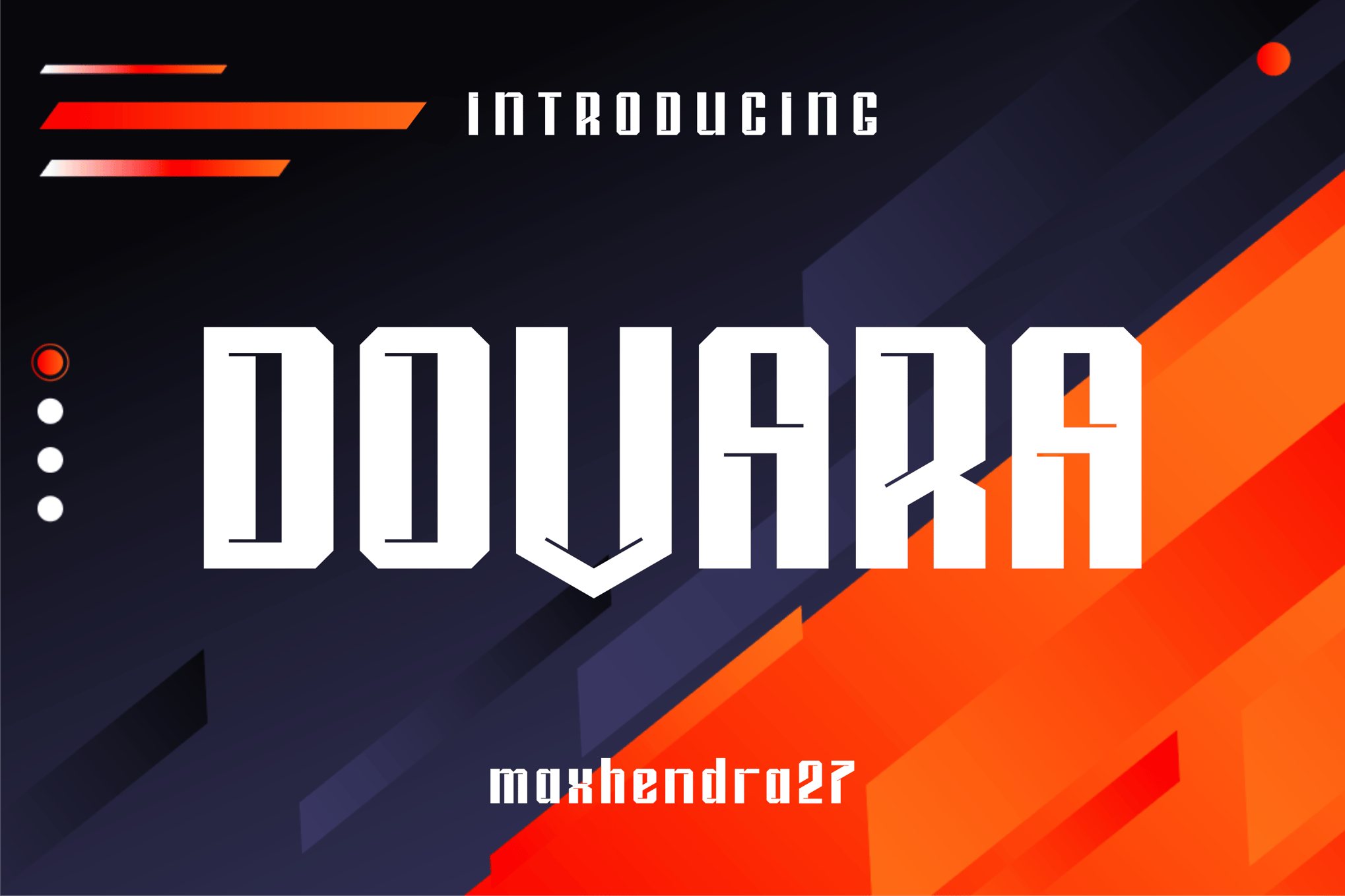
Dovara – Corporate Sport Font
Dovara – Corporate Sport Font brings a balanced structure and contemporary look, making it suitable for both digital and print design. Dovara is a super thick typeface with more traditional letter shapes, making it perfect for creating (or recreating) the concise look of film poster production credits.